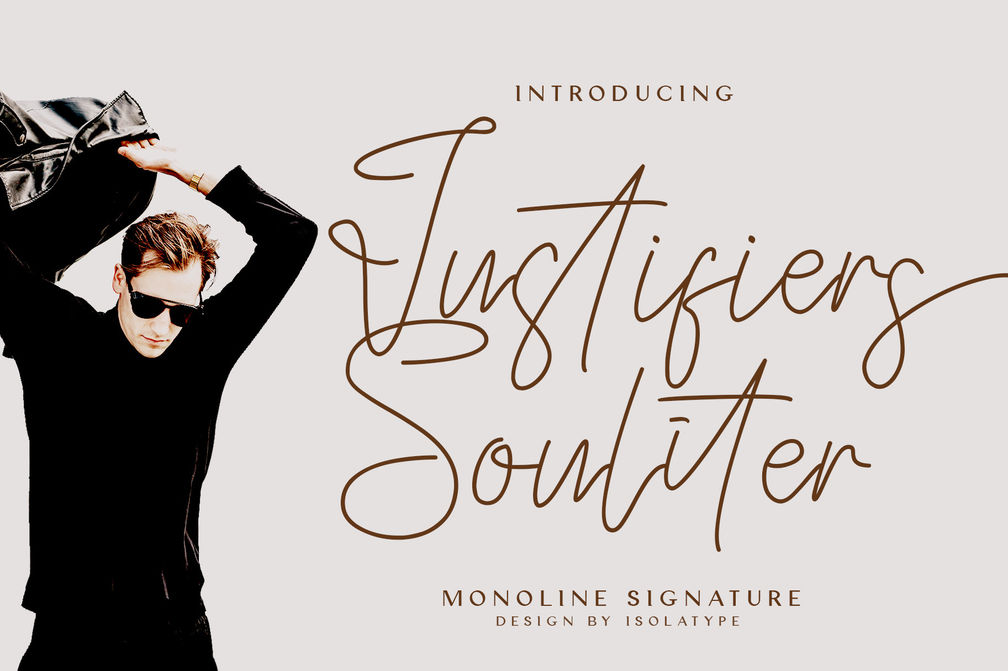
Justifiers Souliter
Justifiers Souliter is a lovely and delicate script font that exudes elegance and class. This font was particularly crafted for those who need a beautiful and refreshing look to their designs. Justifiers Souliter is PUA encoded which means you can access all glyphs and swashes with ease!